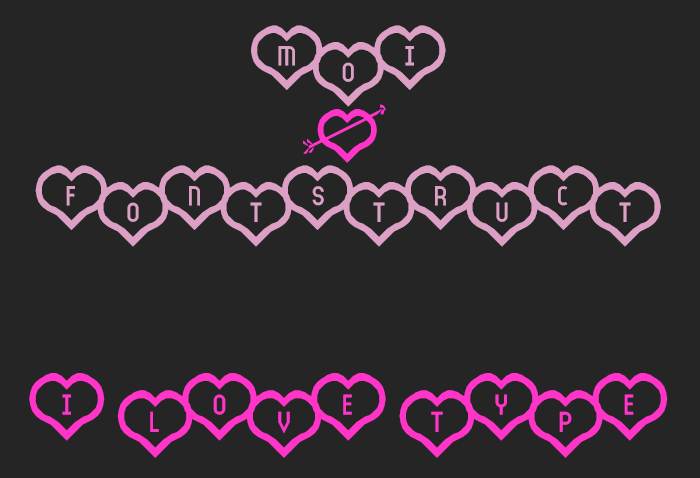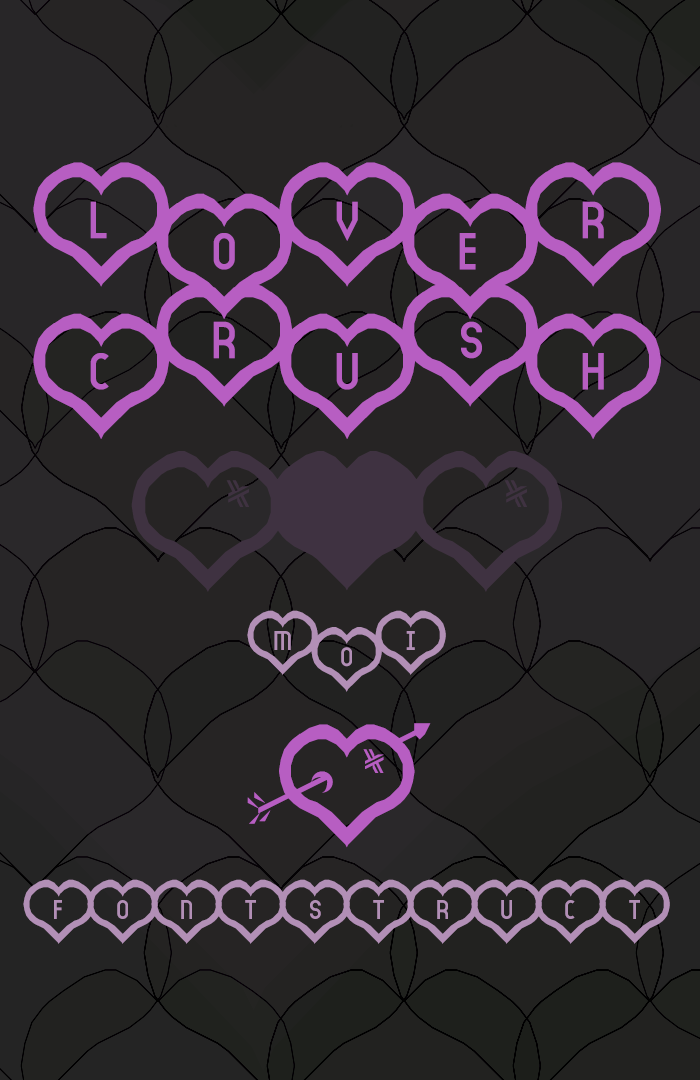
Can there also be a set of numbers that are lowered so the alternating pattern can be done, like with the letters?
Now included,
Located in the "Half Width And Full Width" Unicode block.